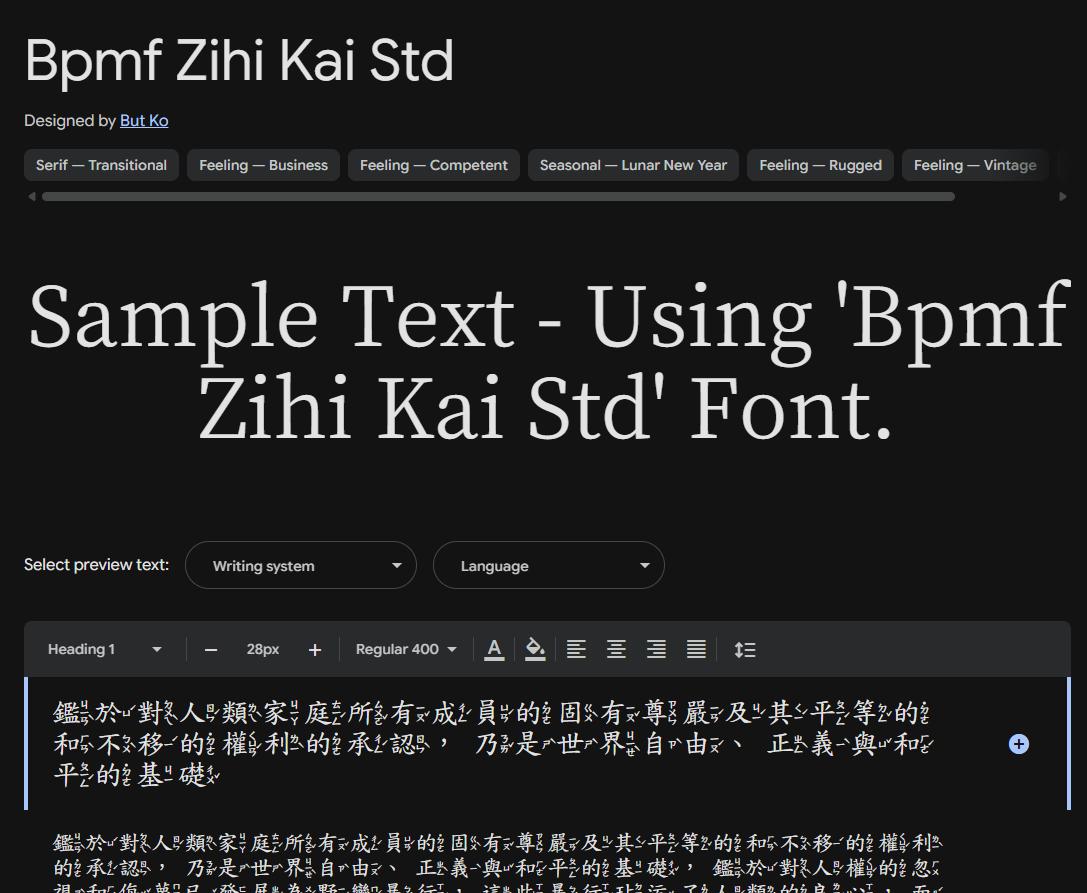
The Bpmf Zihi Kai Std. 1 style. But Ko typeface represents a sophisticated synthesis of pedagogical utility and calligraphic elegance, leveraging the Kaiti structural framework to facilitate stroke-order awareness within CJK digital environments. By integrating Bopomofo (Zhuyin Fuhao) as side-aligned ruby characters through precise OpenType positioning, this font optimizes cognitive processing for language learners, ensuring that each Hanzi glyph maintains its visual weight while accommodating phonetic guides. Technically, the "But Ko" variant addresses specific orthographic nuances and regional character standards, utilizing advanced hinting and vector pathing to preserve the tapered elegance of traditional brush-drawn terminals even at low pixel densities. This convergence of metadata-rich encoding and fluid stroke modulation positions the typeface as a vital tool in the "Zihi" ecosystem, where technical standardization meets the intricate demands of East Asian educational typography.
The Bpmf Zihi Kai Std font family serves as a commanding synthesis of Transitional Serif mechanics and the disciplined stroke geometry of traditional regular script, engineered to project a Competent and Business-ready aesthetic that balances structural rigor with a distinctively Rugged, Vintage texture. By integrating Bopomofo phonetic indicators within its glyph architecture, the typeface achieves a Loud visual cadence and high-contrast legibility ideal for the festive demands of Lunar New Year communications, where its vertical stress and moderate modulation provide a firm typographic anchor. This typeface utilizes a unique semantic bridge between heritage-driven calligraphy and industrial precision, employing sturdy apertures and a dense weight to evoke a sense of historical authority and professional reliability across high-impact display environments.
Due to its specialized integration of Zhuyin Fuhao (Bopomofo) ruby annotations and adherence to pedagogical stroke standards, the Bpmf Zihi Kai Std. 1 style, refined by But Ko, is functionally unsuitable for high-density data environments like financial ledgers or medical white papers where typographic noise and vertical leading fluctuations compromise rapid scanning. The typeface's calligraphic Kaiti terminals and rhythmic variance are designed for literacy development rather than the sterile, neutral "typographic color" required for luxury minimalist branding or high-resolution UI/UX design, where the presence of phonetic side-scripts creates significant visual clutter and disrupts the kerning harmony with Latin-based sans-serif counterparts. Furthermore, in global legal documentation or avant-garde industrial signage, the font's inherent instructional aesthetic lacks the necessary professional austerity, as its optical weight and modular structure are optimized for elementary educational comprehension rather than the legibility demands of high-speed information architecture or multi-script corporate identity systems.
The Bpmf Zihi Kai Std font family features a traditional calligraphic style with brush-like strokes that reflect standard Kai-shu formal handwriting aesthetics. Its stroke modulation and "stop-and-turn" dynamics are governed by a glyph-construction algorithm that preserves the visual weight distribution across more than 13,000 characters.
Yes, this font is meticulously designed to support literacy and language learning by integrating clear phonetic guides alongside legible character forms. The standardized stroke order and modular proportions adhere to Ministry of Education guidelines, ensuring a high degree of pedagogical accuracy for early childhood cognitive development.
The Zhuyin symbols are vertically aligned to the right side of the main Hanzi characters to facilitate simultaneous reading of sound and meaning. This layout utilizes precise OpenType GPOS (Glyph Positioning) tables to maintain a fixed 1:2 ratio between the phonetic annotation and the character's em-box.
The family typically focuses on a standard medium weight to ensure that the intricate strokes of the phonetic marks remain clear without blurring. While weights may be limited, the vector outline data is optimized for high-contrast rendering, preventing the "clogging" of complex radicals in bold-simulated instances.
To ensure the Bopomofo symbols remain readable, it is generally recommended to keep the main character size at 12 points or higher for print applications. At lower screen resolutions, the sub-pixel rendering of the auxiliary phonetic glyphs requires a minimum of 16px to avoid aliasing artifacts that compromise the distinguishability of the four tonal marks.
The font is natively optimized for vertical orientation, which is the traditional standard for Chinese literary texts and pedagogical materials. It employs the 'vert' and 'vpal' OpenType features to automate the baseline shifts required for seamless top-to-bottom character flow.
While the Kai-shu style is traditional, it can be paired with clean, humanist sans-serif fonts to create a balanced hybrid of classical and contemporary design. Effective pairing requires matching the x-height of the Latin typeface with the optical center of the Hanzi to prevent visual jarring during mixed-script composition.
The font provides extensive coverage of the Big5 character set, encompassing the most frequently used Traditional Chinese glyphs for standard communication. Its character mapping covers the CNS 11643 standard, ensuring that even rare components remain stylistically consistent with the primary Bopomofo-integrated glyphs.
This font family is versatile enough to provide sharp edges in professional printing and clarity across various digital screen types. The use of high-fidelity TrueType curves ensures that the intricate Bopomofo side-car characters maintain their geometric integrity even under 1200 DPI offset printing conditions.
Because of the additional width required by the Bopomofo sidebars, the font naturally requires more generous line spacing to prevent visual overcrowding. Typographers must account for the specific side-bearing values in the font's metadata, as the horizontal advance width is often 1.5 times that of a standard CJK character em-square.